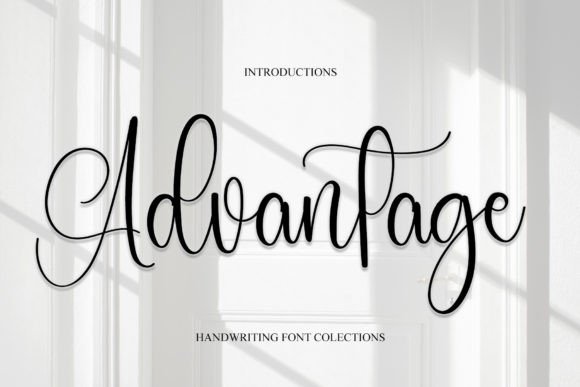
The Magical Advantage Font: Elevate Your Designs with Elegance
I still remember the frustration of working on a design project, hours spent crafting the perfect layout, only to realize that the font I was using just wasn’t cutting it. The client wanted something elegant, something that would make their brand stand out, but I was stuck. That’s when I discovered the Advantage font, and it was like a breath of fresh air. This magical handwritten font has been a game-changer for my designs, and I’m excited to share its advantages with you.
I’ve had the pleasure of working with Advantage for a while now, and here’s my honest review:
- ✨ Elegant and sophisticated: Advantage adds a touch of luxury to any design, making it perfect for high-end brands or special projects.
- ✅ Versatile: This font works beautifully for both digital and print designs, from social media graphics to business cards and brochures.
- 🎨 Creative freedom: With its wide range of glyphs and stylistic alternates, Advantage gives you the flexibility to experiment and create unique designs.
Now, no font is perfect, and Advantage has a few quirks:
- 🤔 Some characters may require manual kerning: While Advantage is generally well-spaced, some character combinations might need a bit of manual adjustment for optimal results.
- ⚠️ Not ideal for body text: Due to its elegant, cursive nature, Advantage is best suited for headings and titles rather than large blocks of text.
The Story Behind Advantage
Advantage was created with the goal of providing designers with a versatile, elegant font that could add a touch of sophistication to any project. Inspired by traditional calligraphy and modern digital design, Advantage’s creator aimed to craft a font that would be both beautiful and functional. The result is a magical handwritten font that can elevate any design into a true piece of art.
| What makes Advantage a good choice for Instagram designs? | Advantage’s elegant and sophisticated style makes it perfect for creating eye-catching Instagram graphics, from quotes and stories to feed posts and captions. |
| Is Advantage a difficult font to learn? | Not at all! Advantage is designed to be user-friendly, and its OpenType features make it easy to access a wide range of glyphs and stylistic alternates. |
| Can I use Advantage for both digital and print designs? | Absolutely! Advantage is a versatile font that works beautifully for both digital and print designs, from social media graphics to business cards and brochures. |